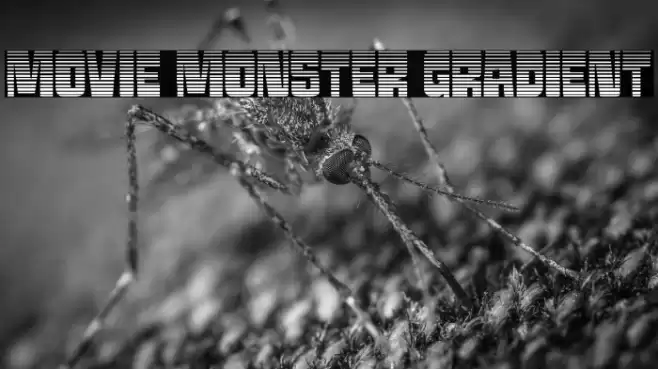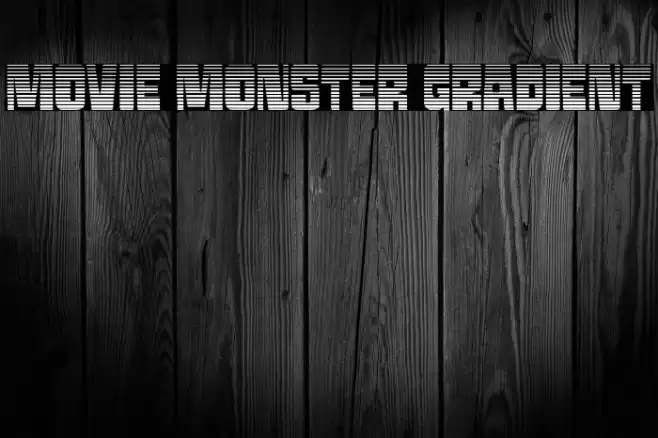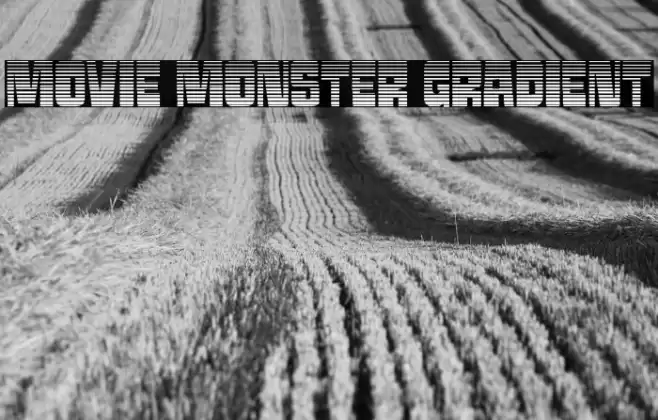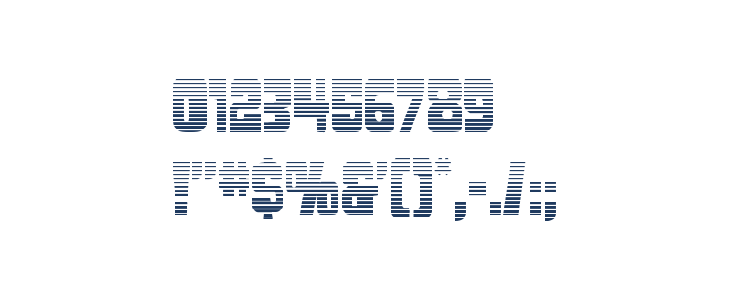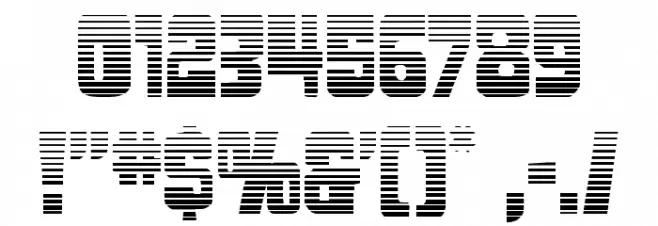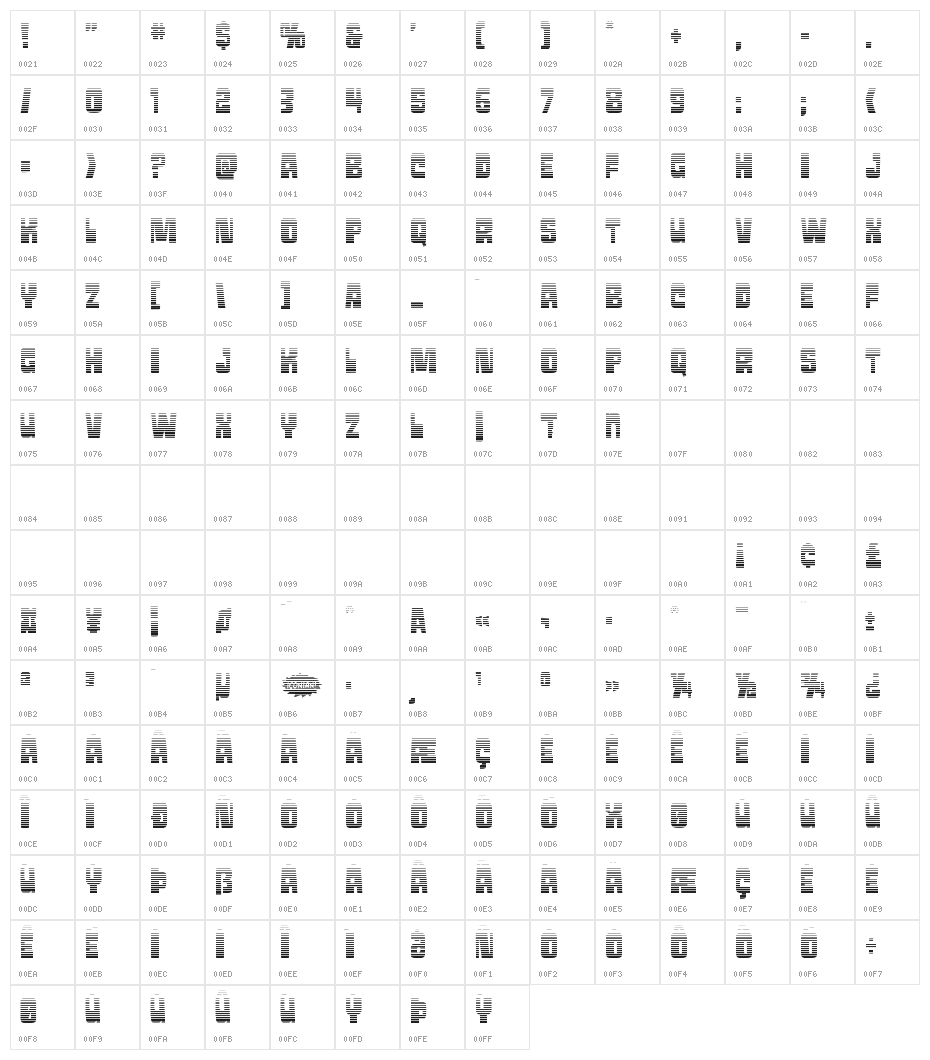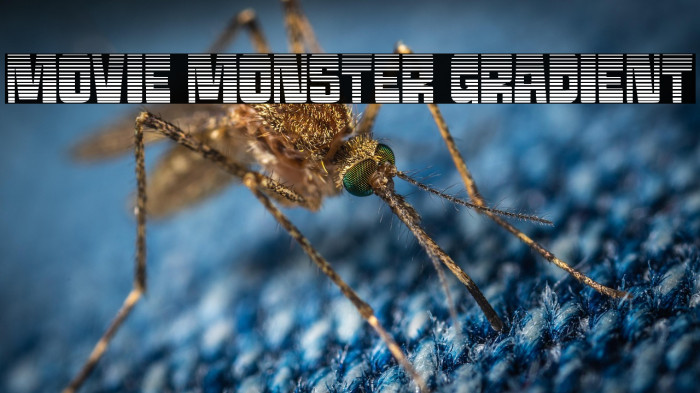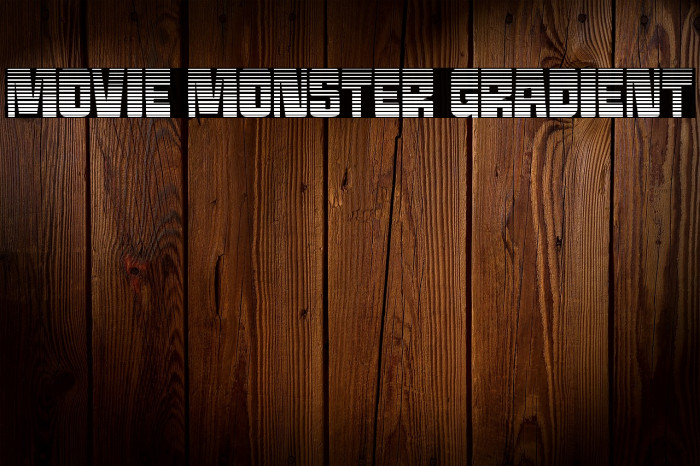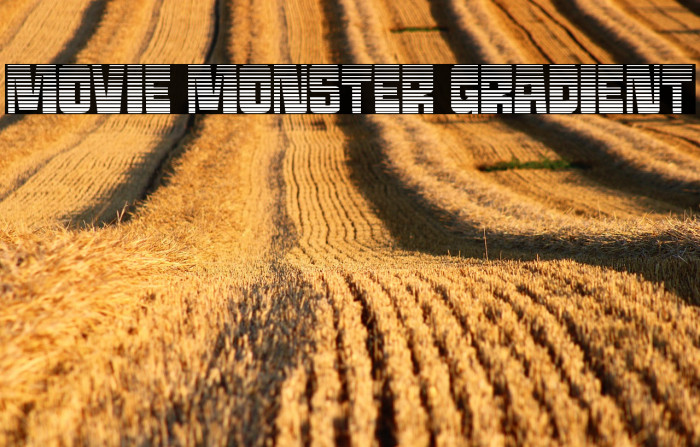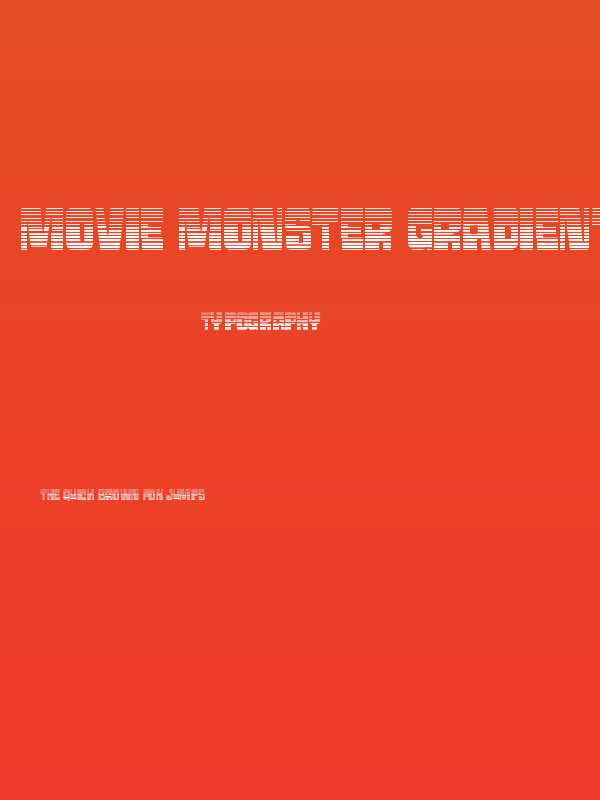
Movie Monster Gradient Font
Movie Monster Gradient Description
This font features a bold, futuristic design with a distinctive striped pattern running horizontally across each character. The uppercase letters are blocky and geometric, giving a sense of strength and modernity. The numbers and special characters follow the same design principles, ensuring consistency throughout. The font's unique style makes it stand out, with each character appearing as if it's been sliced into horizontal segments, creating a dynamic visual effect. This design is perfect for projects that require a bold, eye-catching typeface.
A bold, futuristic font with a distinctive horizontal stripe pattern from Regular fonts.
- Proposed Projects: Ideal for movie posters, video game titles, sci-fi book covers, and branding for tech companies.